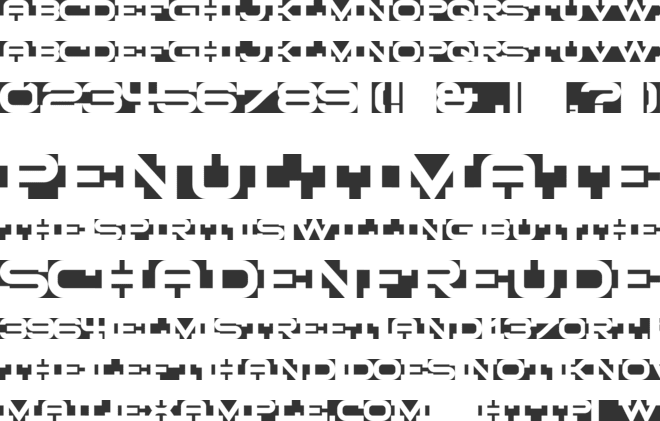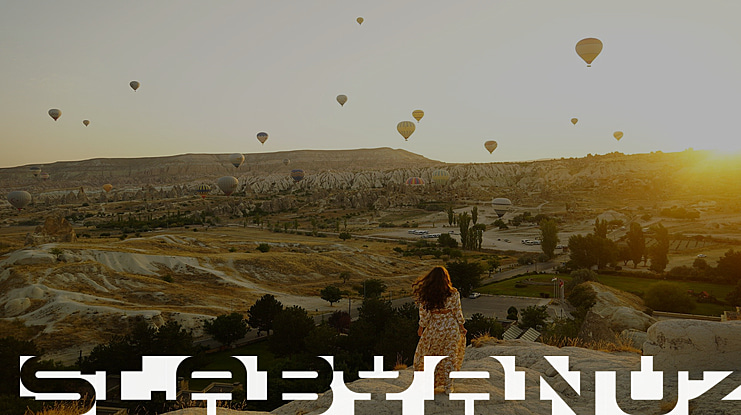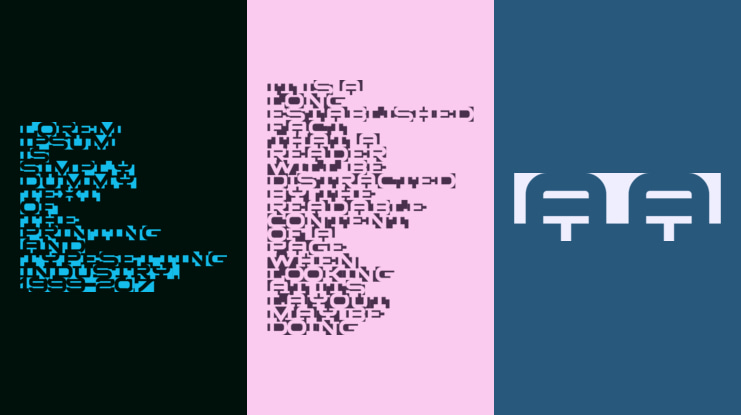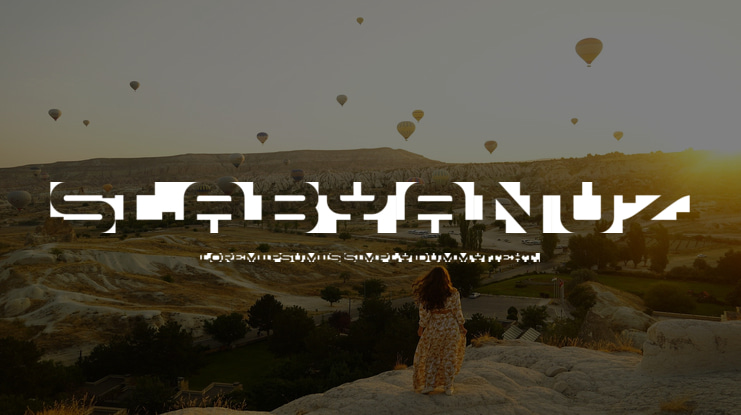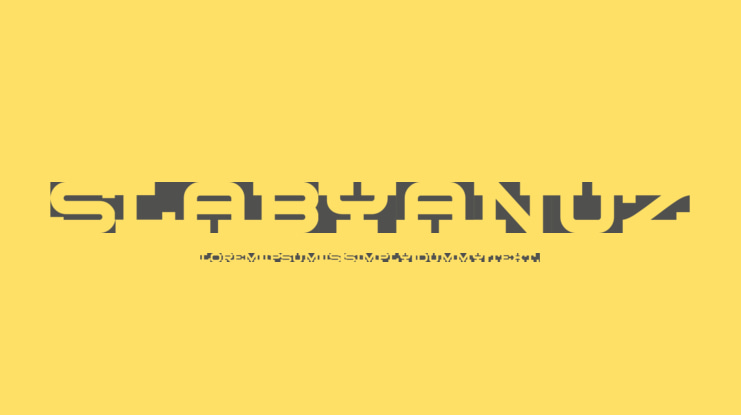
Slabyanuz Font
HUGE negative space font with thicc slabs. I made it so it connects at the top and bottom -in Illustrator at least- which makes some nice strange shapes when you use multiple lines. Because of this it oversteps the usual boundaries (windescent and winascent), which can give you some trouble printing, so convert to curves before you do.
You can use a / or a \ as a black space between words.